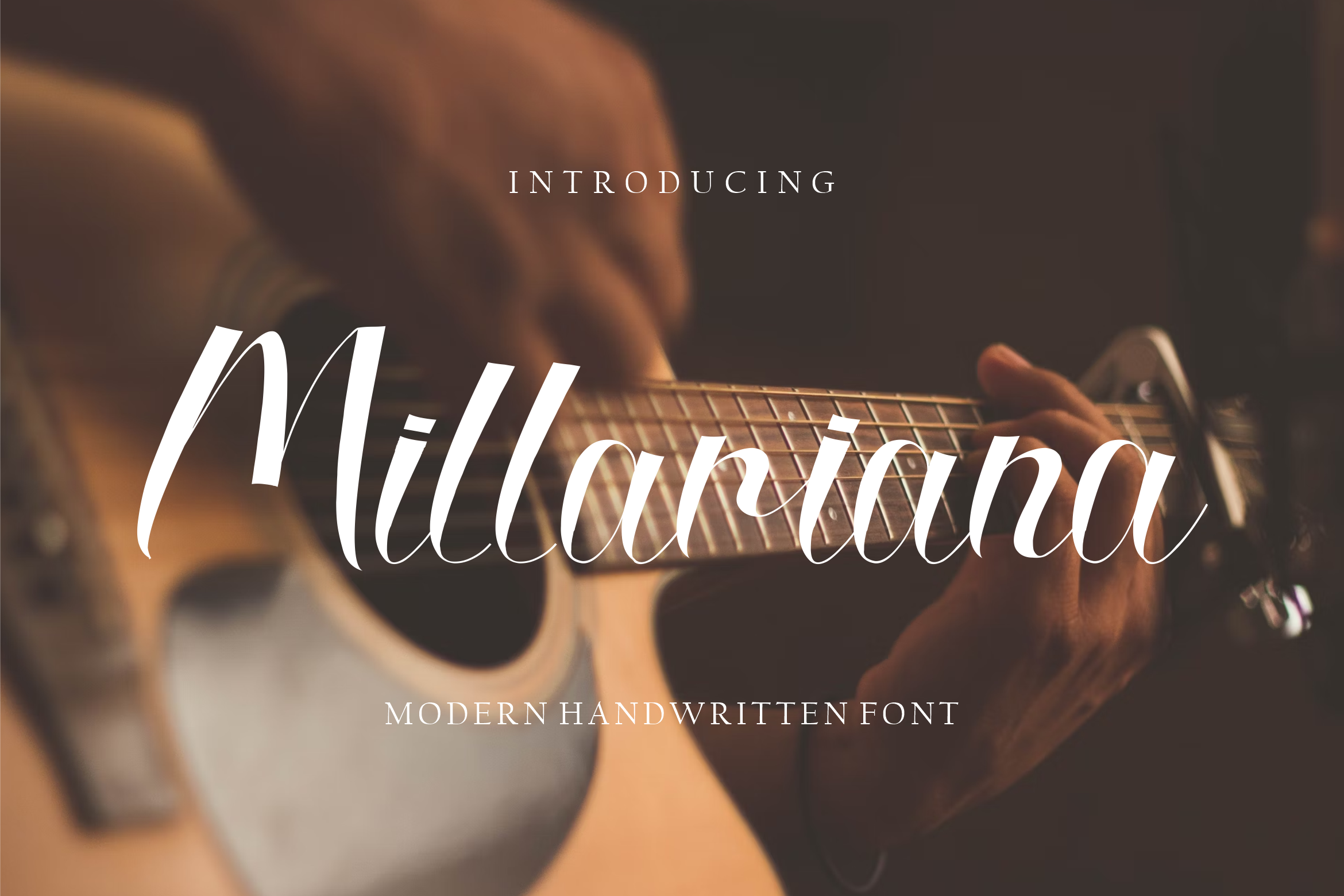
Millariana Handwritten Font.
Millariana Handwritten Font - related to travel, history & culture in the present/modern way,lifestyle designs such as logos, title, magazine, and more.